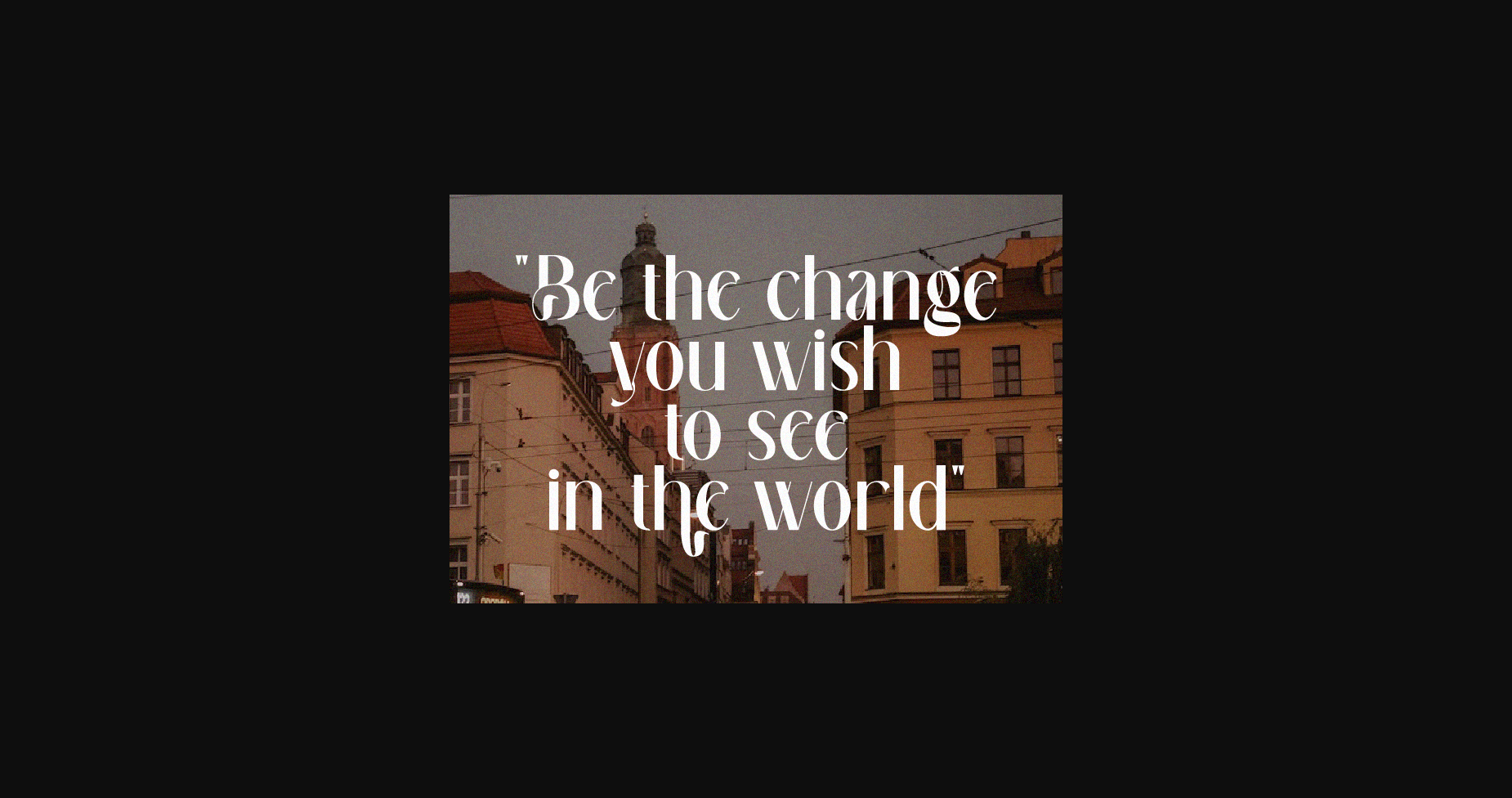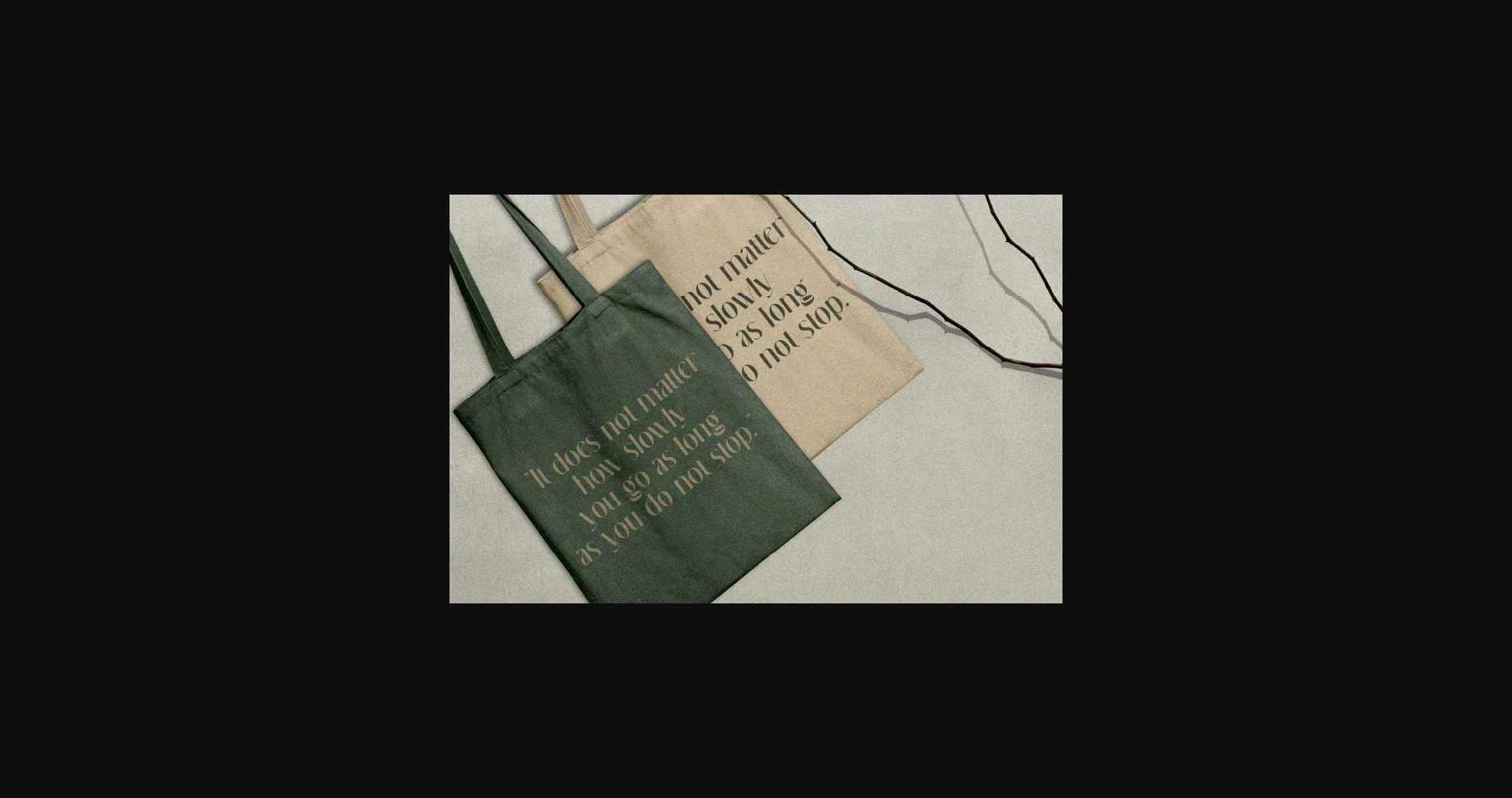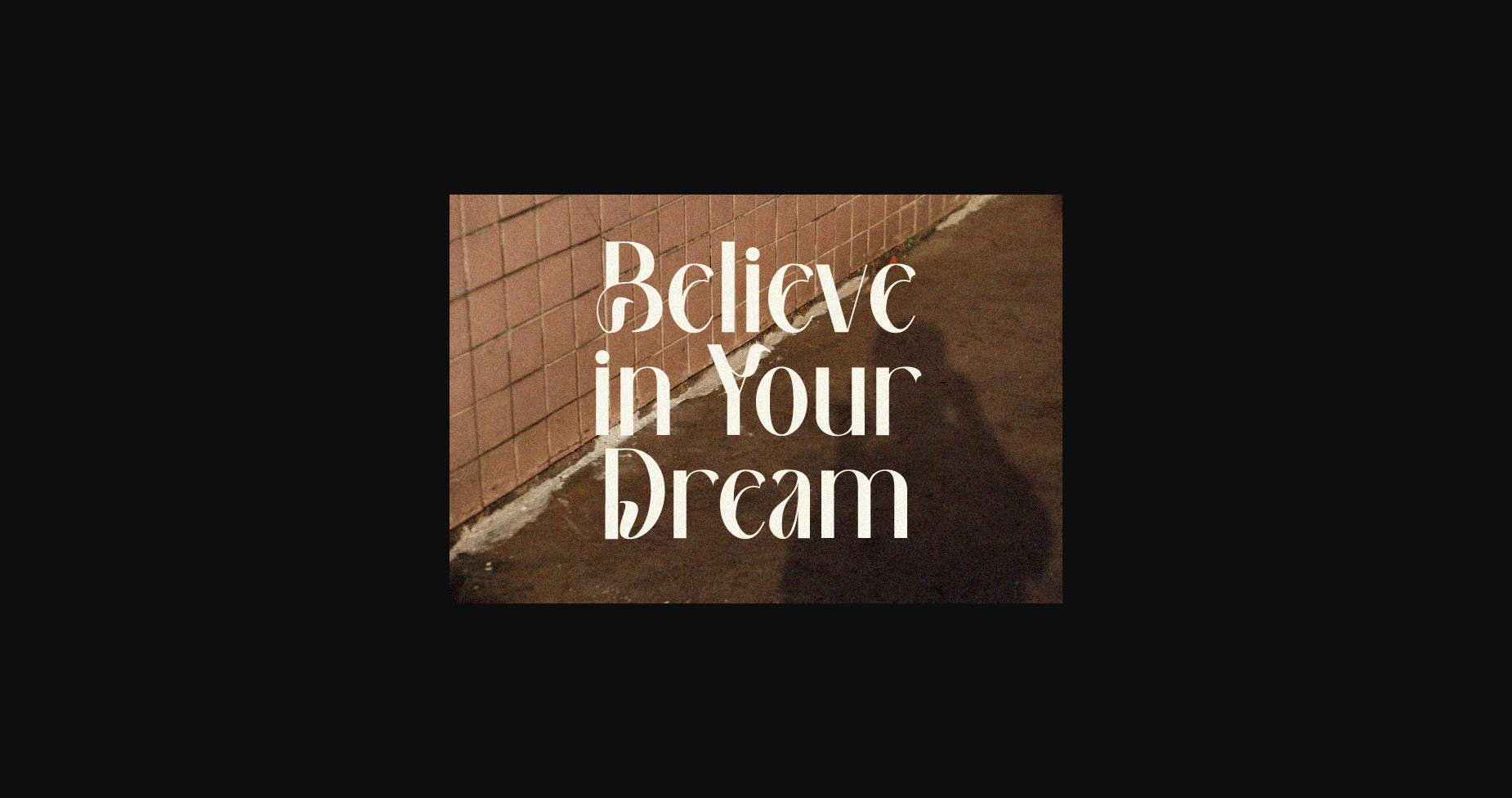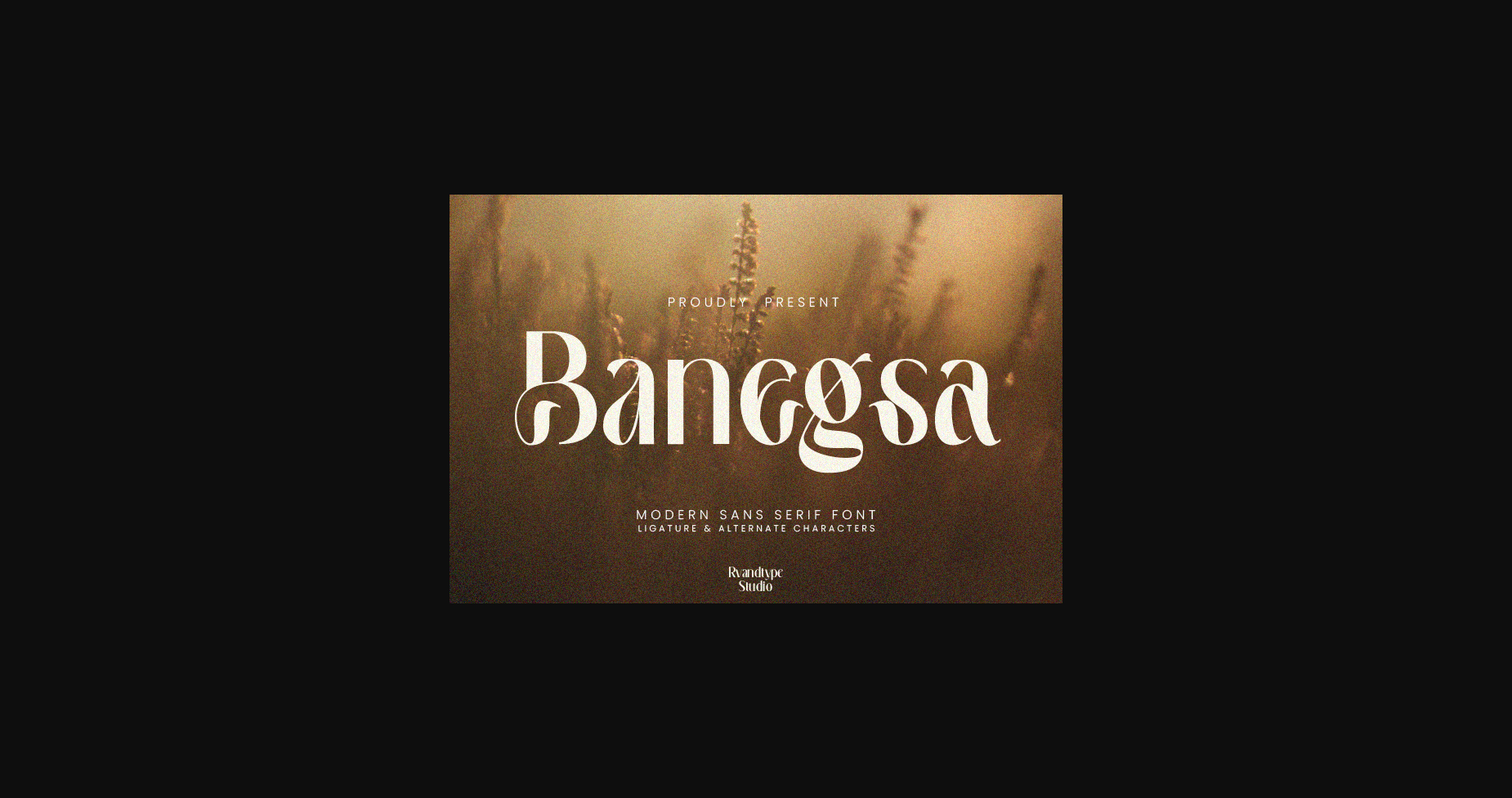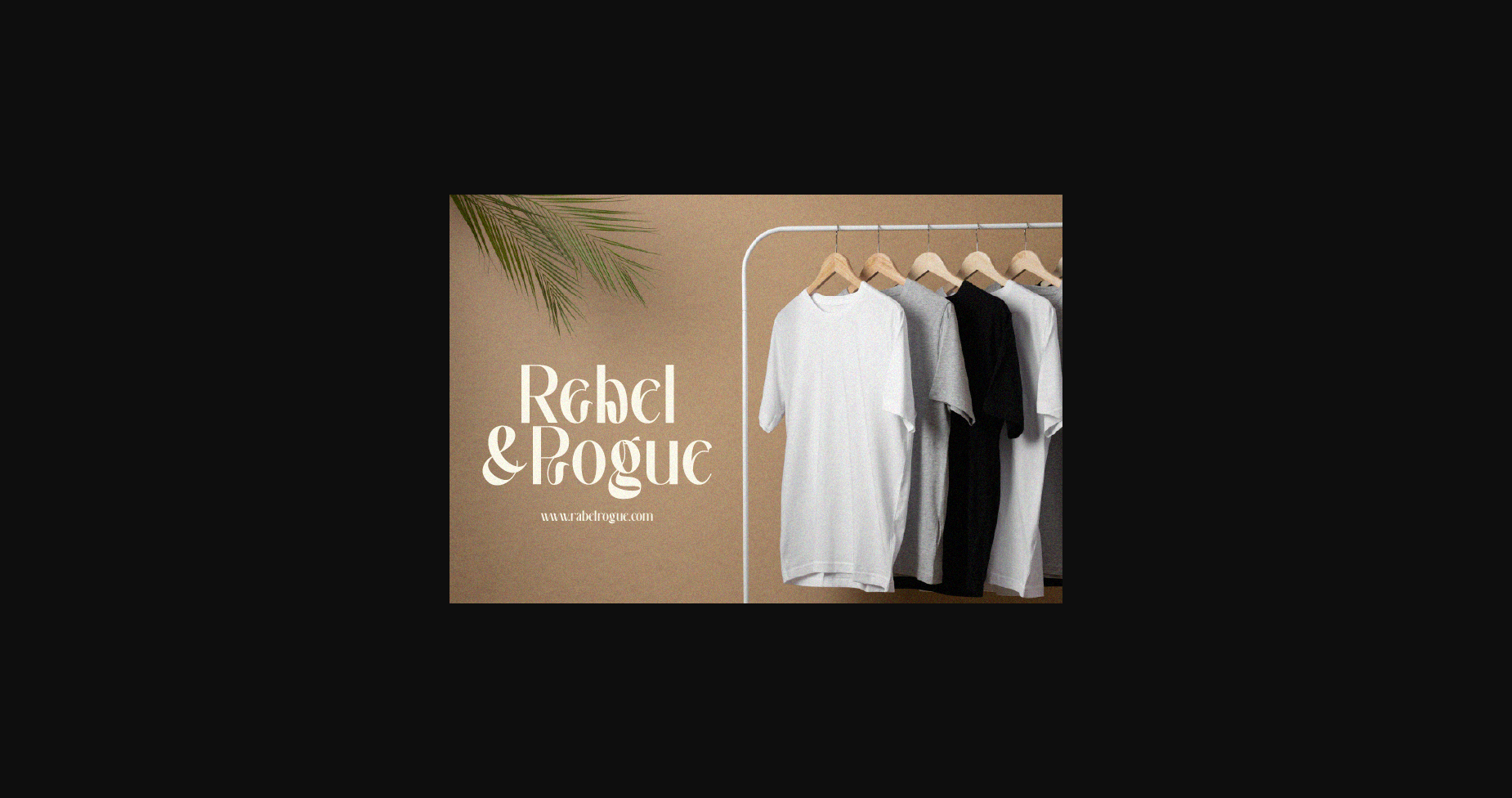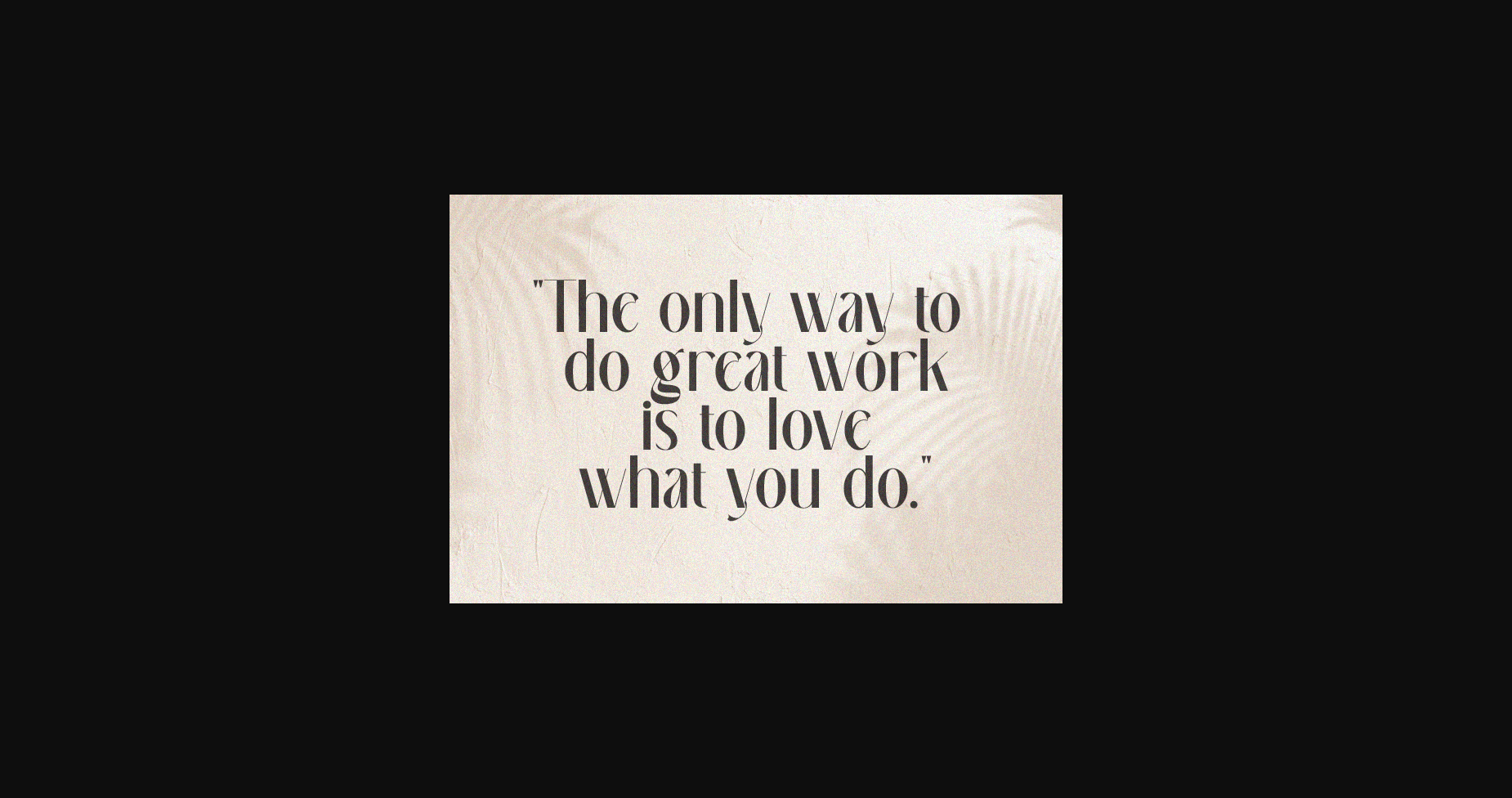
Banegsa Font
About Banegsa Font
Banegsa is a modern and stylish sans serif font. Its elegant and cool look makes it the perfect choice for logos, branding, invitations, stationery, wedding designs, social media posts, and so much more.